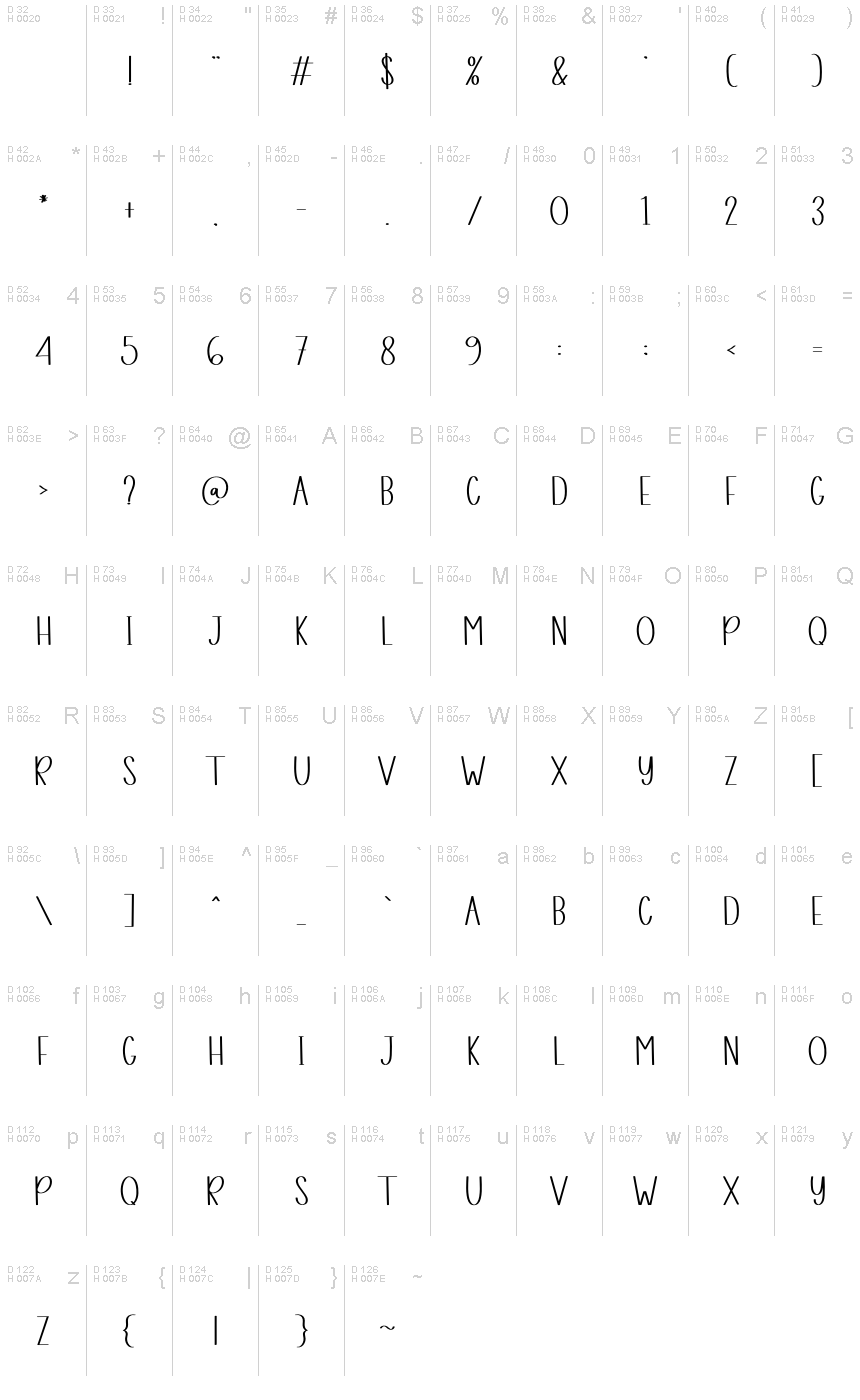
Social House
Social House, crafted by Scratchones, is a charismatic handwritten font with a semi-light weight and condensed width that offers an intimate yet sophisticated touch to any design. Its organic, flowing lines bring the personal charm of handwriting to the digital sphere, making it an excellent choice for invitations, branding projects, and social media graphics where a touch of elegance is desired.
The unique flair of Social House lies in its ability to blend casual handwriting with a tidy, condensed form—perfect for conveying warmth without sacrificing space. It stands out for its versatile aesthetic that can oscillate between playful and serious tones depending on the context.
Whether you're looking to add personality to your editorial designs or aiming for an approachable look in your marketing materials, Social House strikes an impeccable balance between individuality and readability. This font promises to elevate your creative endeavors with its distinct style.